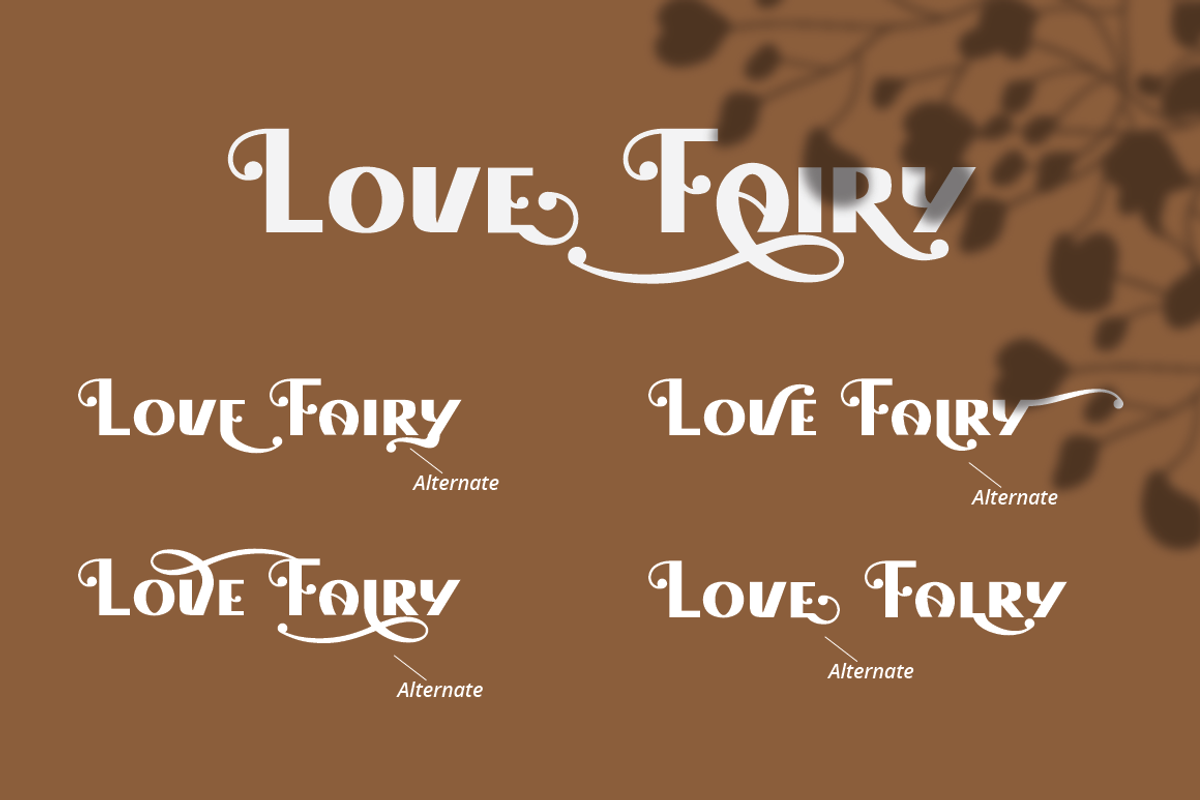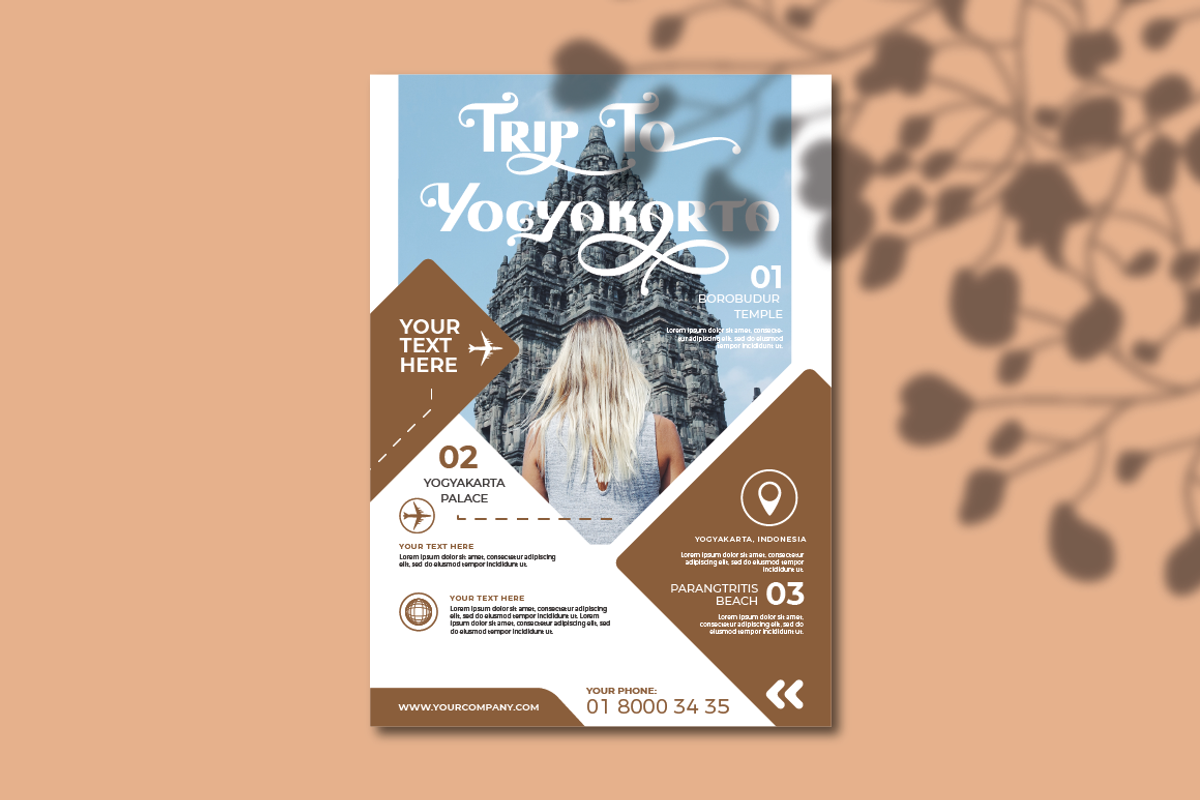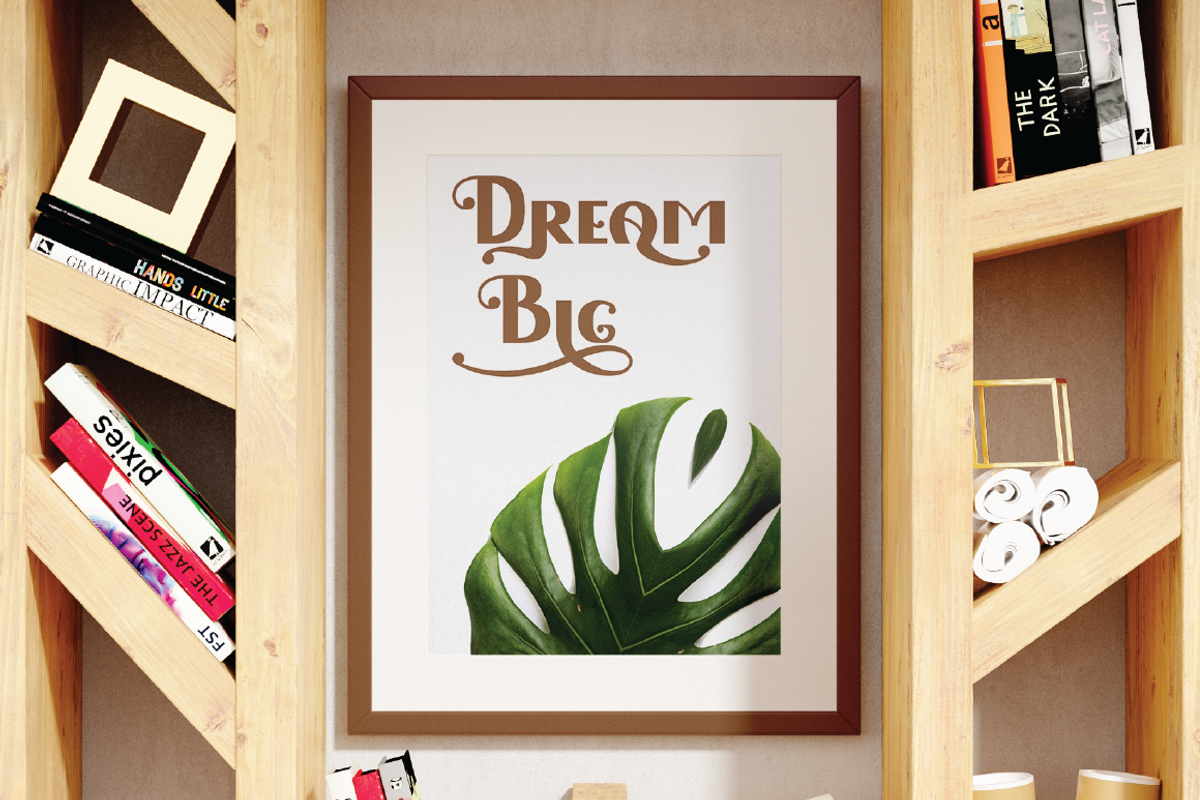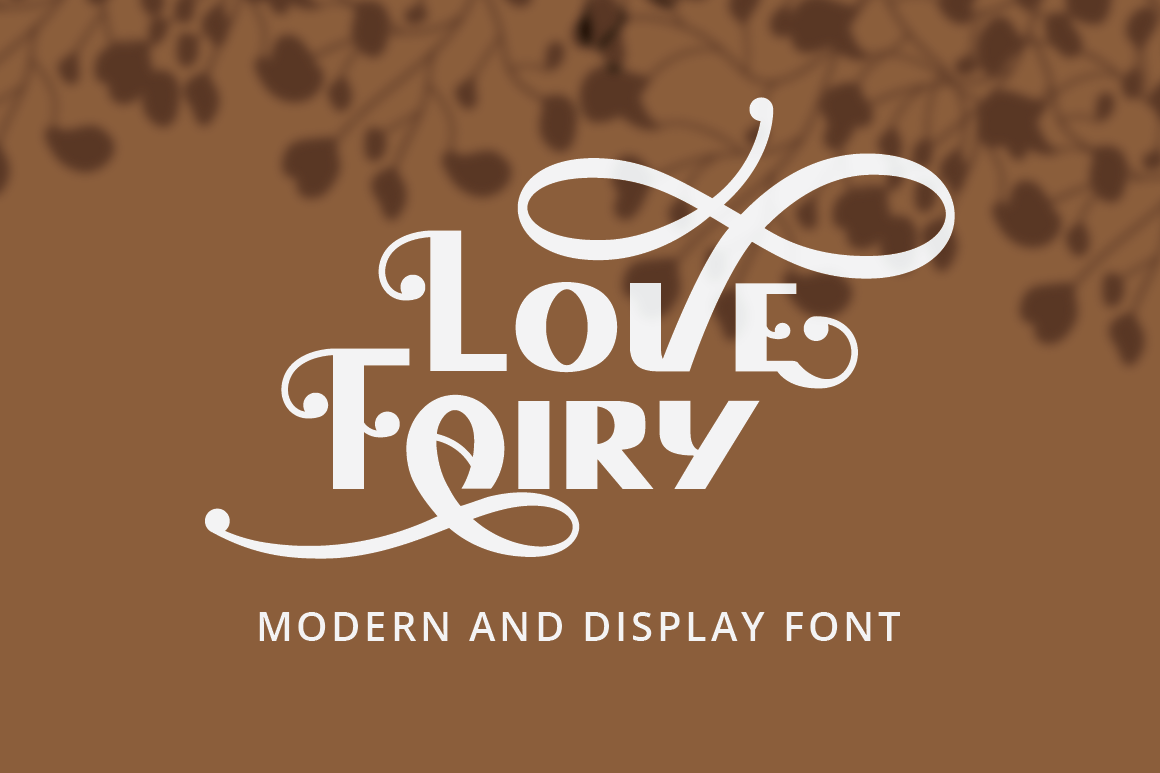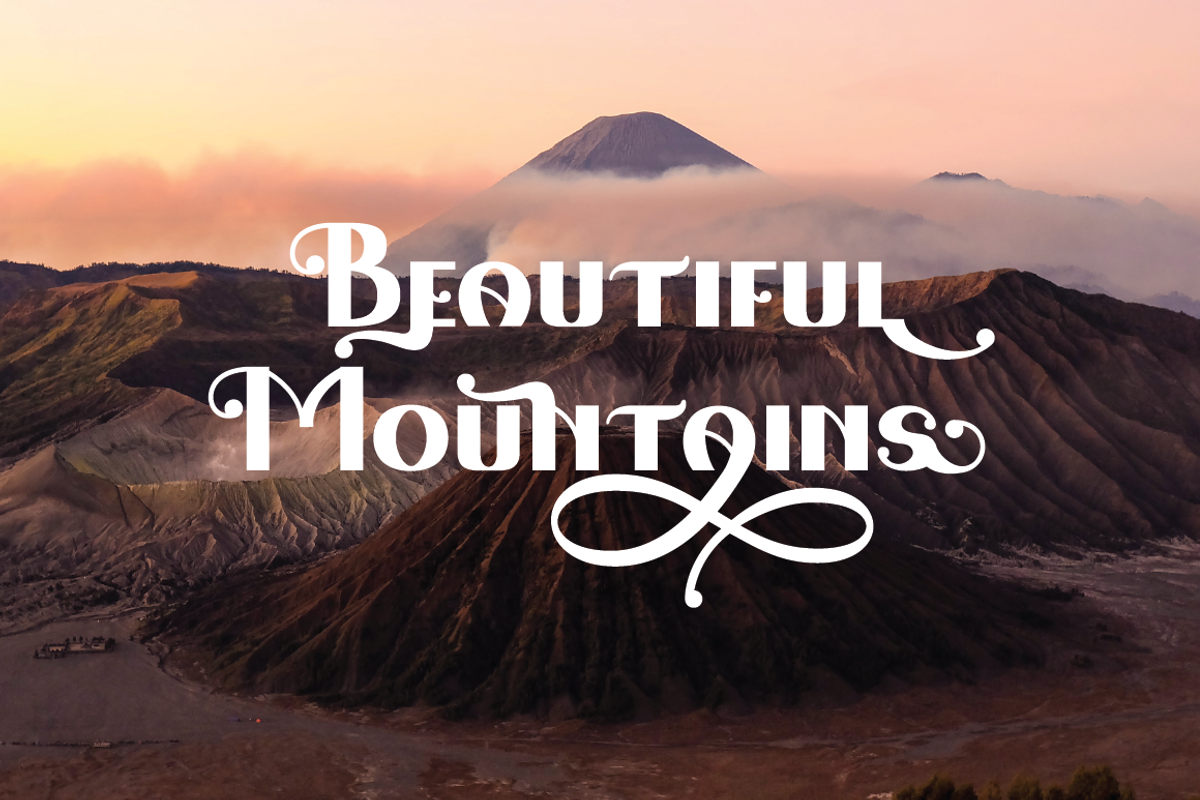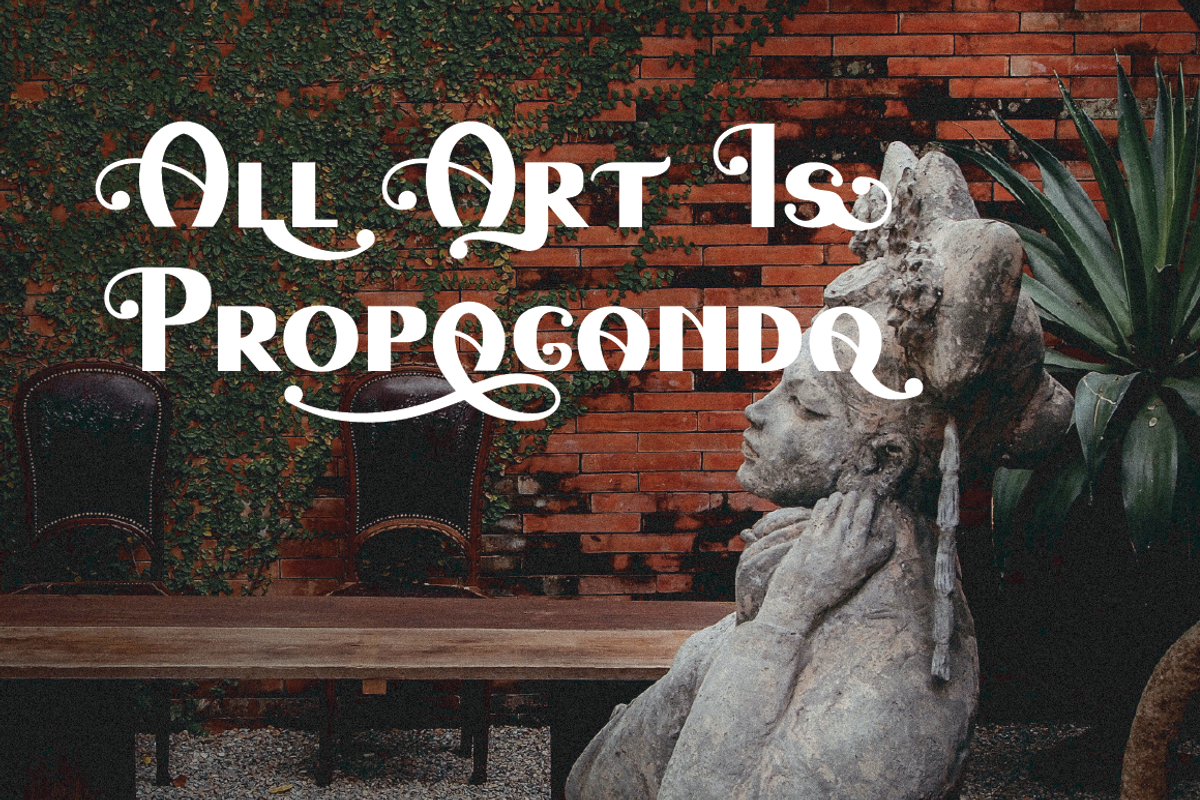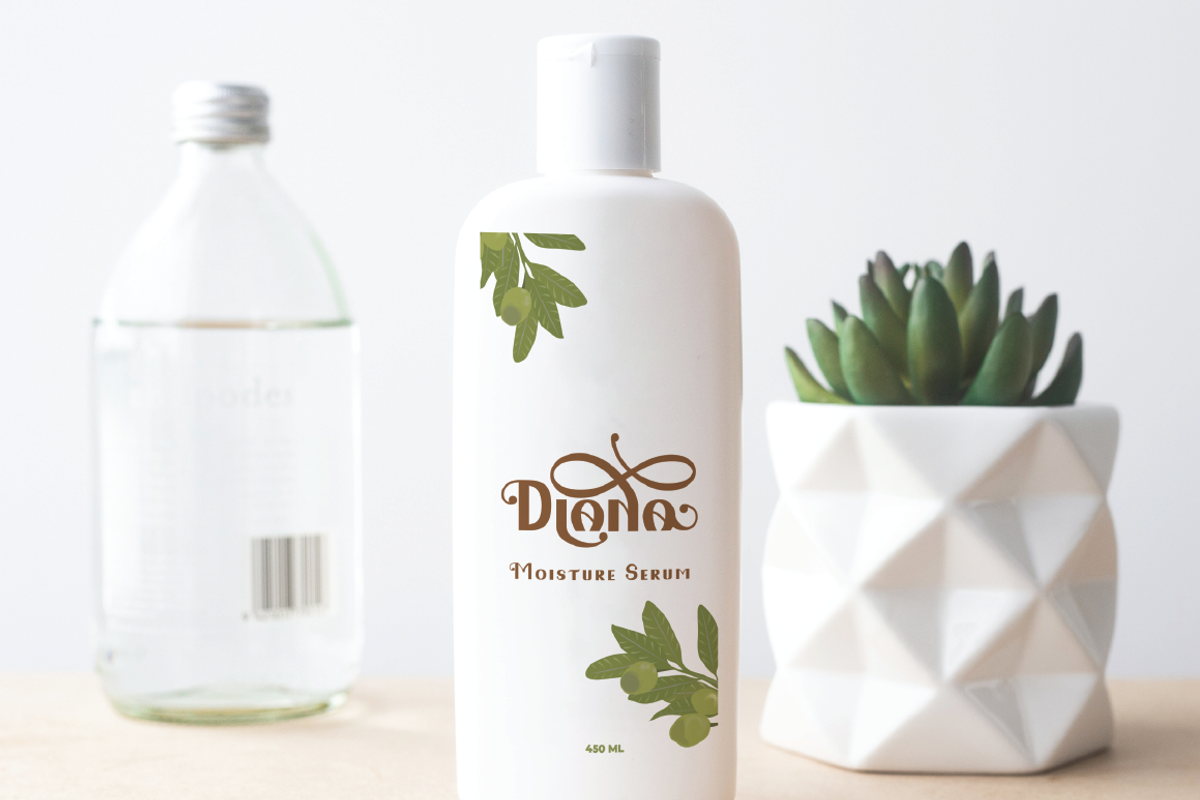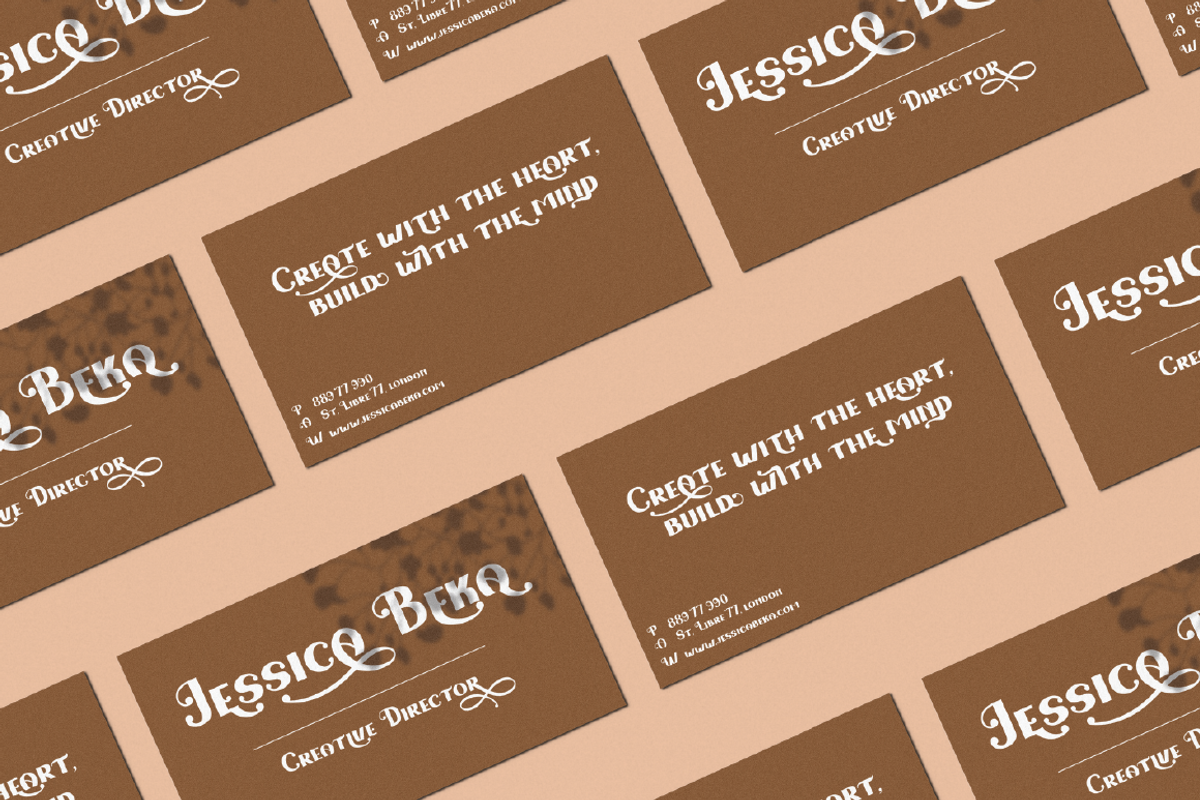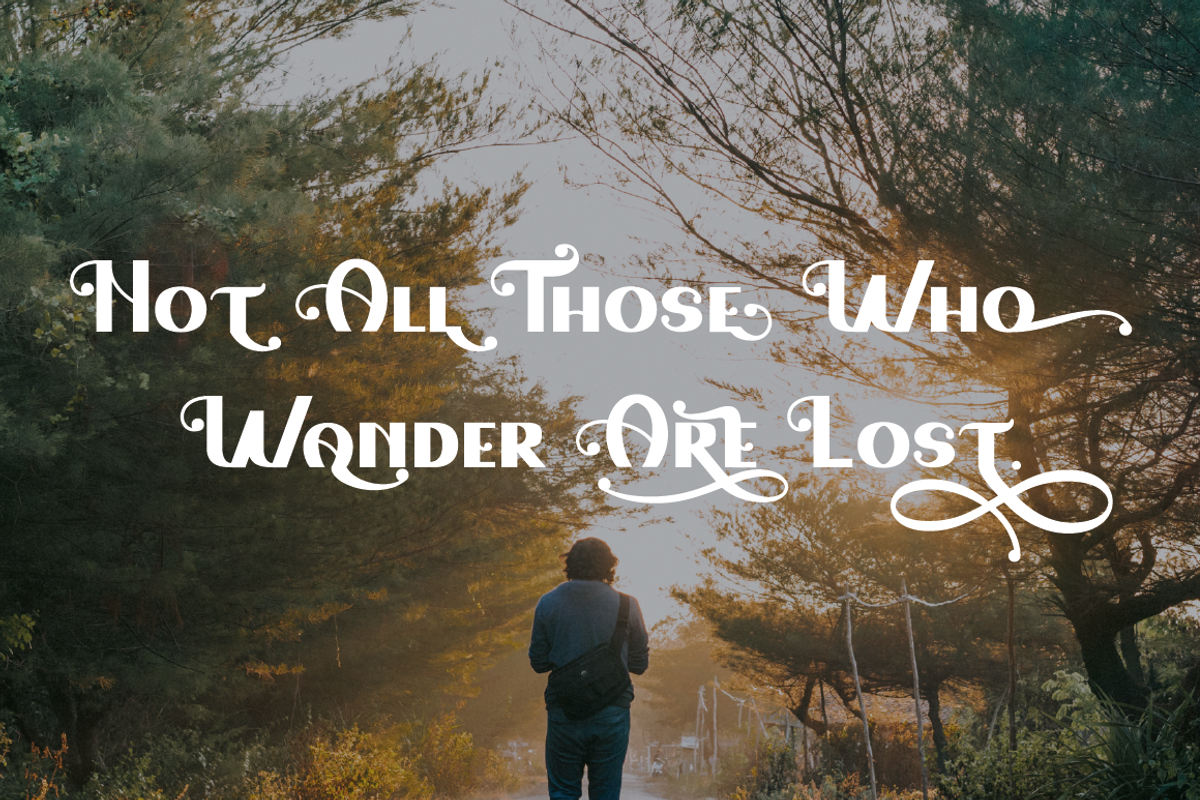
Love Fairy - Modern Display Font
Love Fairy
Love Fairy is a modern display font. Love Fairy is perfectly suited to signature, wedding, social media, stationery, logo, typography quotes, magazine or book cover, website header, clothing, branding, packaging design and more.
This font is also support multi language.
Comes with feature :
- Number, Punctuation And Symbols
- Multilanguage Support.